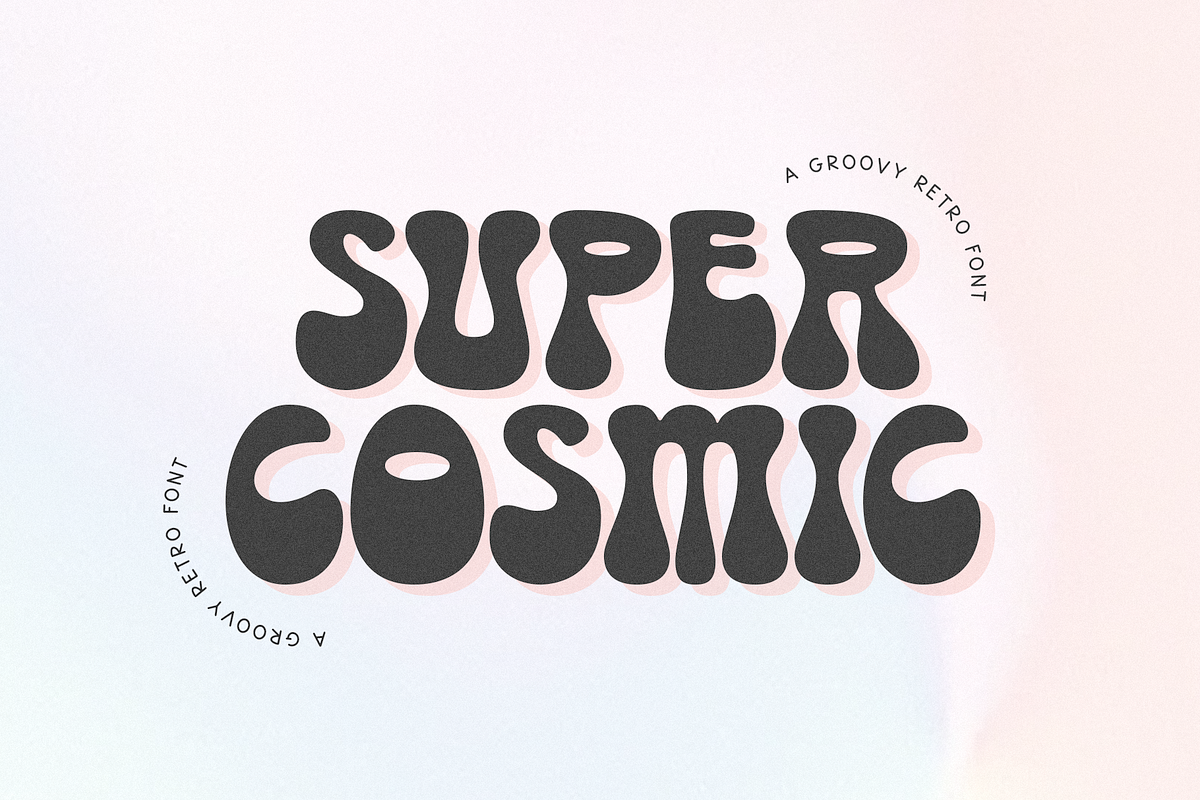
Super Cosmic | Bubbly Retro Font Free Download
You must purchase this font for commercial use. However, you can download Super Cosmic | Bubbly Retro Font Free Download for testing purposes. Super Cosmic is a fun, bubbly retro font designed to bring vibrant energy and a nostalgic flair to your designs. With its rounded, playful letterforms and bold retro vibe, this font is perfect for posters, logos, branding, social media content, and anything that needs a fun, vintage-inspired touch.
The unique bubbly shape and lively design make Super Cosmic ideal for projects that want to evoke the playful, groovy aesthetics of the past while still maintaining modern appeal. Whether you’re designing for a fun event, creating a quirky brand, or developing a bold advertising campaign, this font brings personality and charm to your typography.